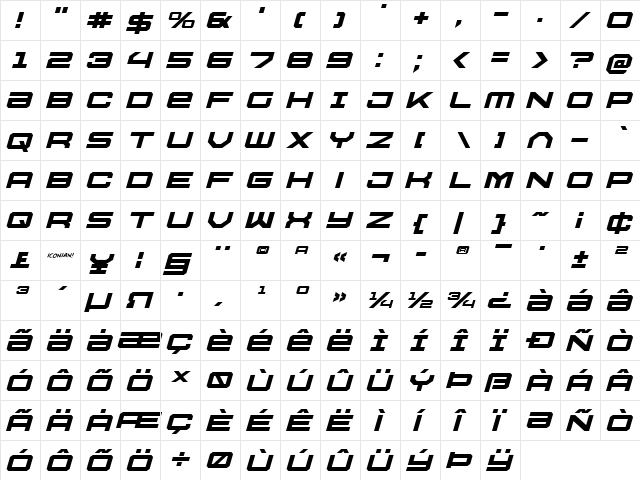
U.S.S. Dallas Expanded Italic Expanded Italic
Design Context for U.S.S. Dallas Expanded Italic Typeface
U.S.S. Dallas Expanded Italic offers clean, dependable letterforms without strong stylistic allegiance, making it a practical choice for designers who need flexibility. The slanted form adds forward momentum and visual energy.
Pro Tip: Use U.S.S. Dallas Expanded Italic for emphasis, pull quotes, and subheadings where its slanted energy can add rhythm to the layout.